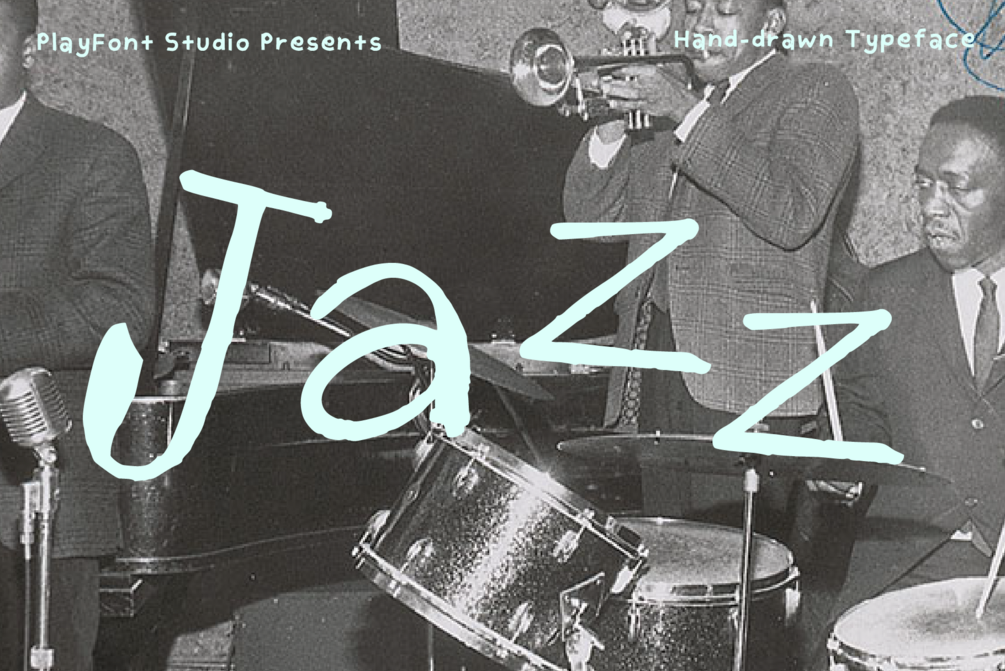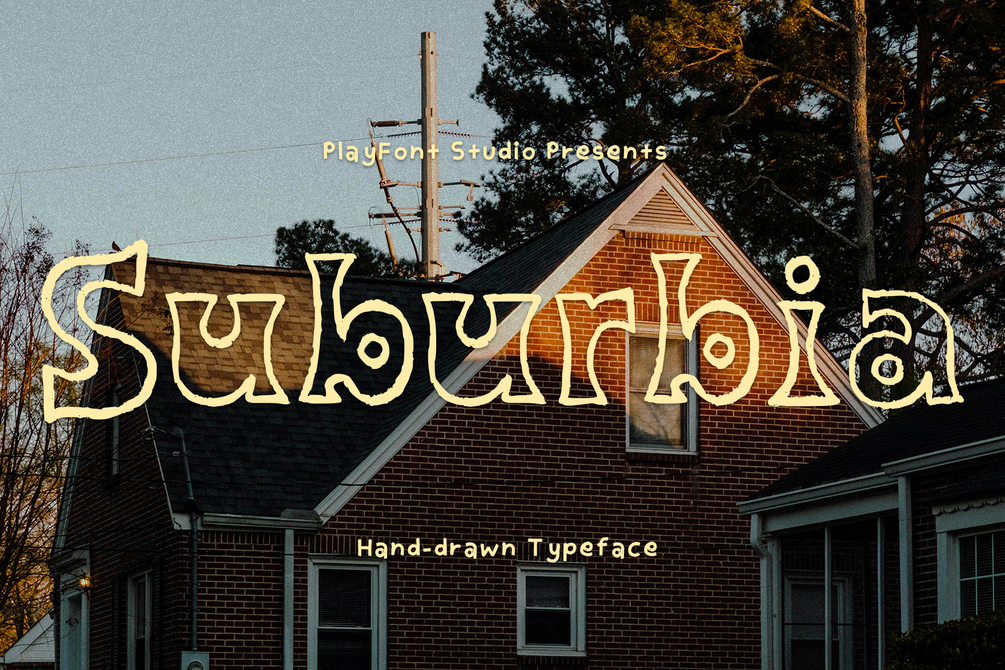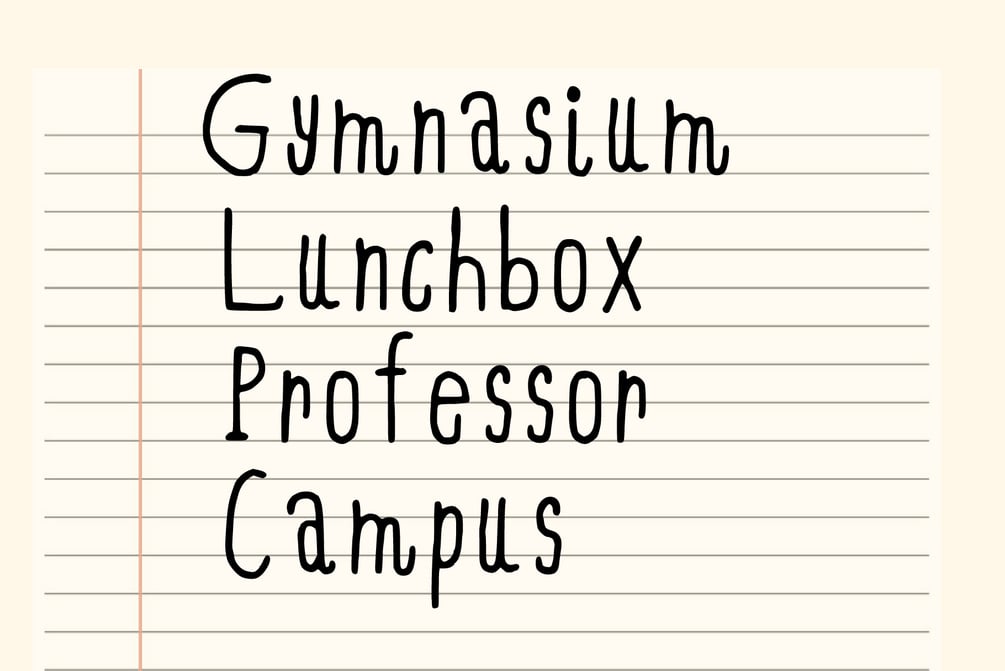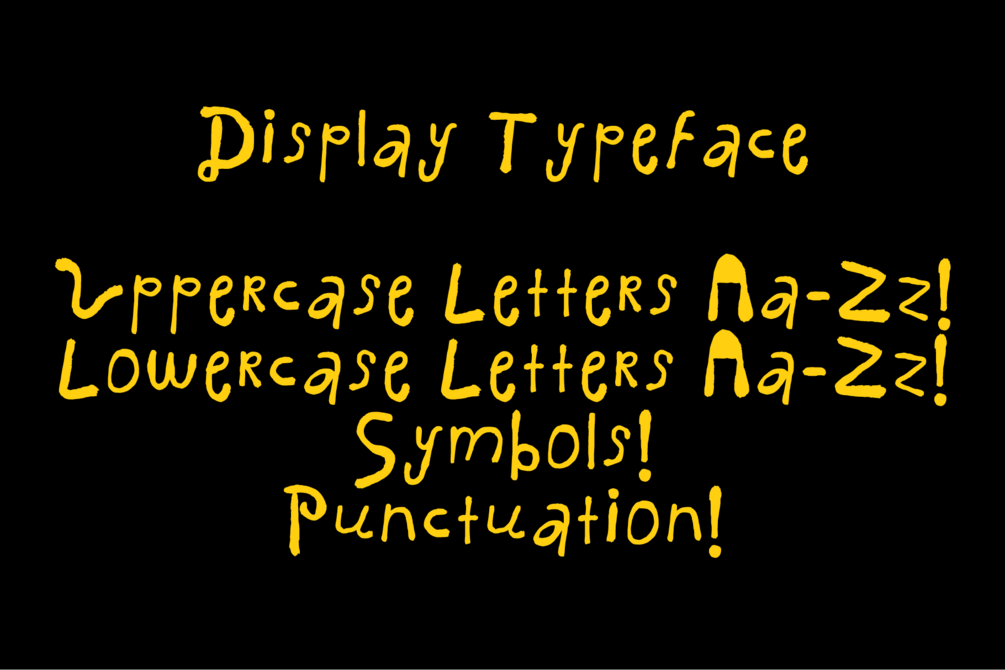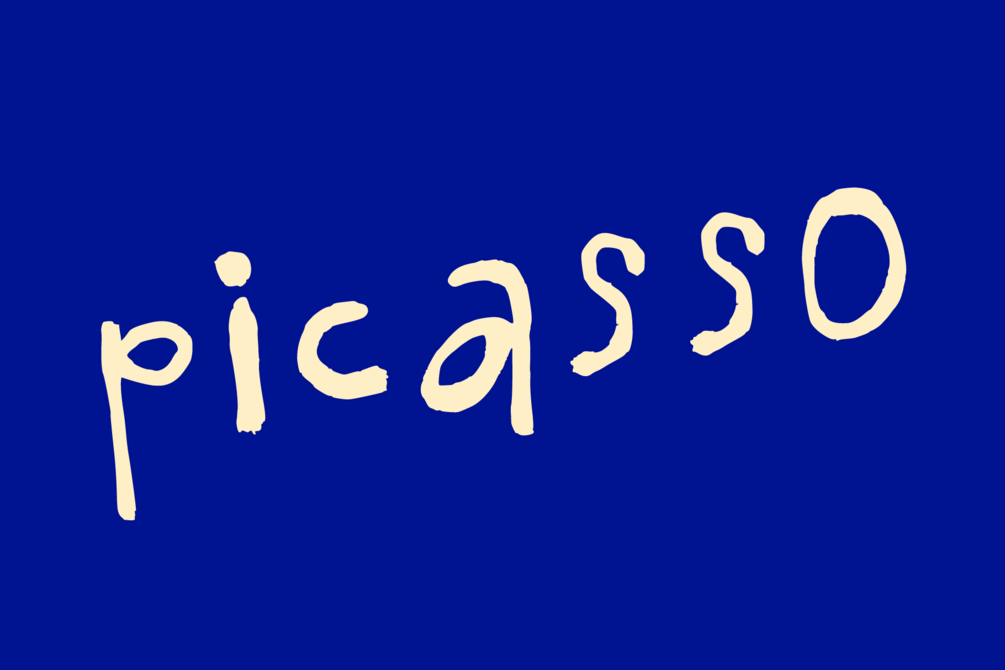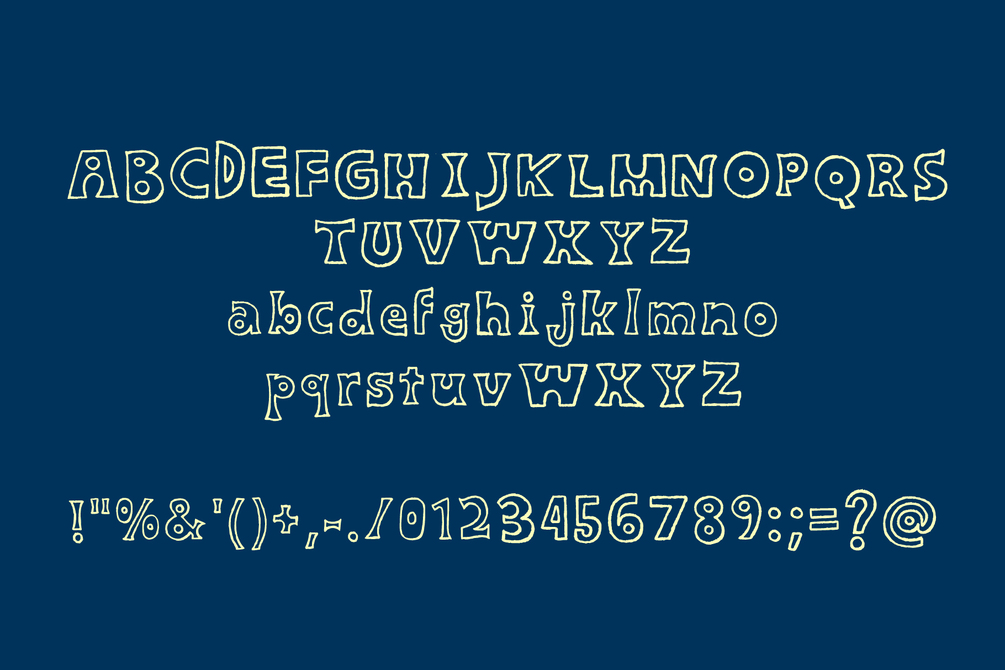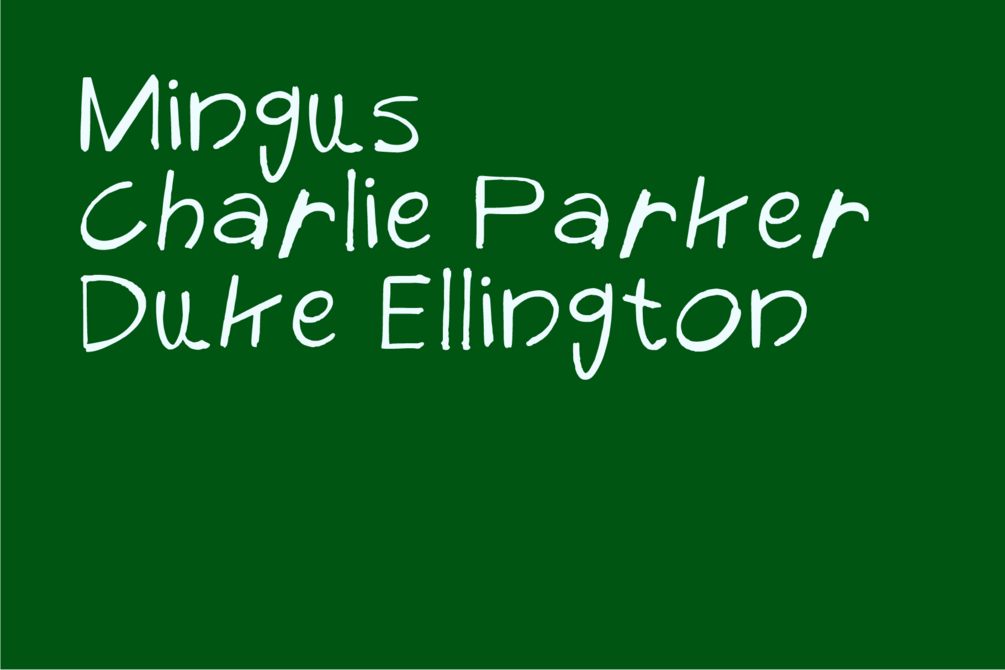
Transform your creative projects with our specially curated font bundles, featuring our top-selling and most versatile typefaces. Perfect for designers, marketers, and creatives alike, these bundles bring together four of our most popular fonts: Le Buffet, Suburbia, Yearbook, and Jazz. Each font offers a unique style to make your work stand out.
Le Buffet
Bring a touch of elegance and sophistication to your designs with Le Buffet. Ideal for invitations, branding, and upscale projects, this font exudes class and refinement.
Suburbia
For a modern, clean, and versatile look, Suburbia is your go-to font. It's perfect for everything from web design to print media, offering a contemporary aesthetic that fits any project.
Jazz
Infuse your work with the energy and rhythm of Jazz. This dynamic font is great for music-related projects, posters, and anything that needs a lively, vibrant touch.
Yearbook
Step back in time with Yearbook, a font that captures the essence of classic school yearbooks. It’s perfect for vintage designs, nostalgic projects, and anything that needs a retro flair.